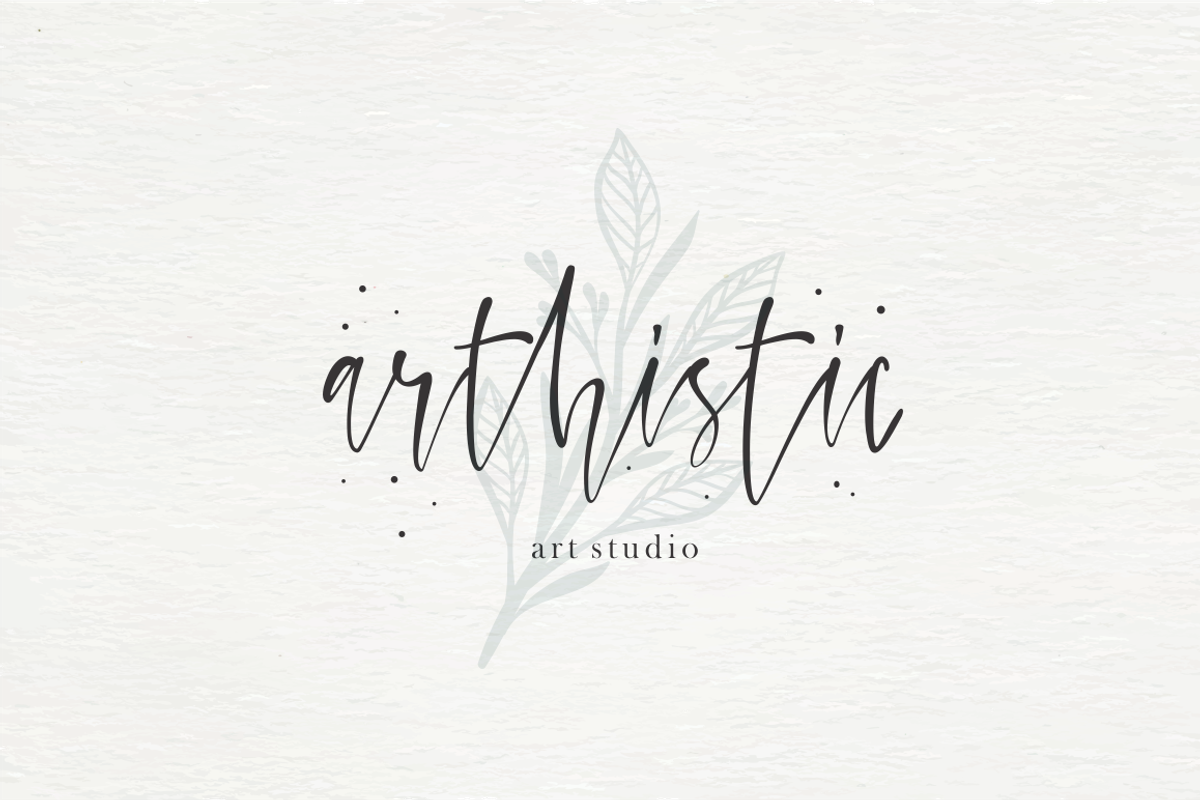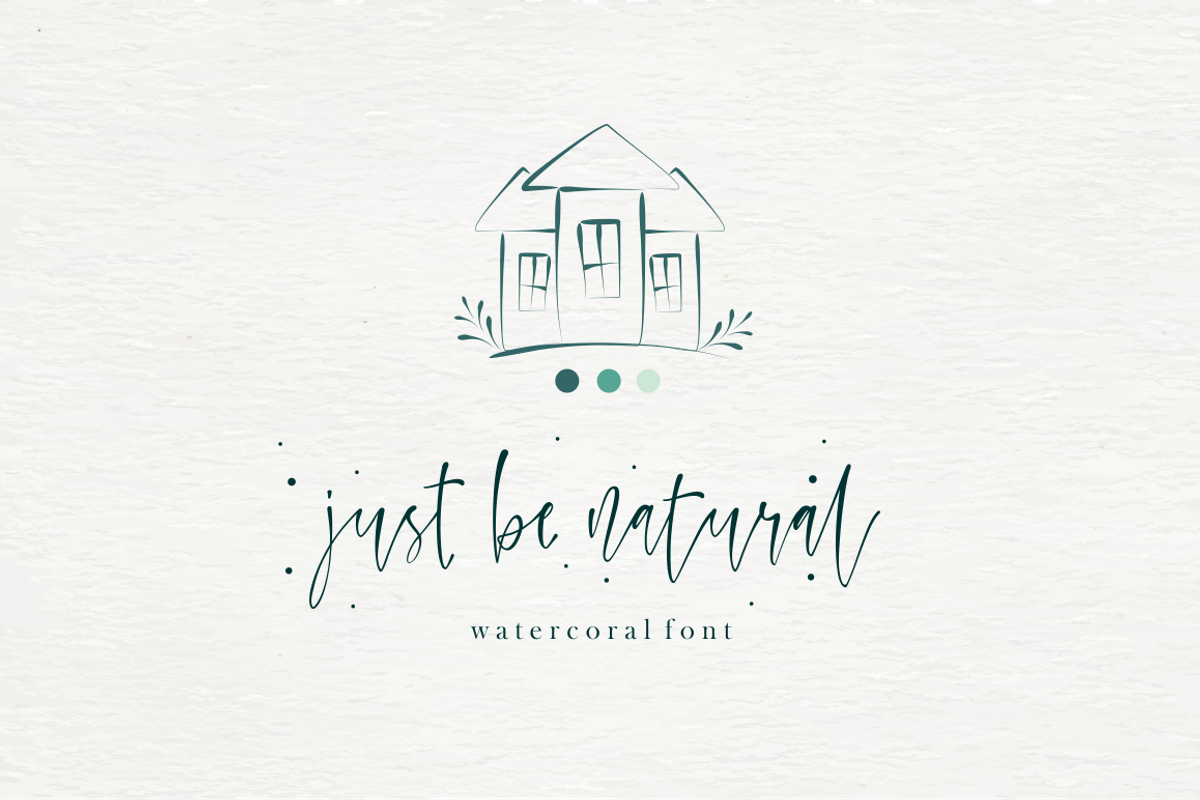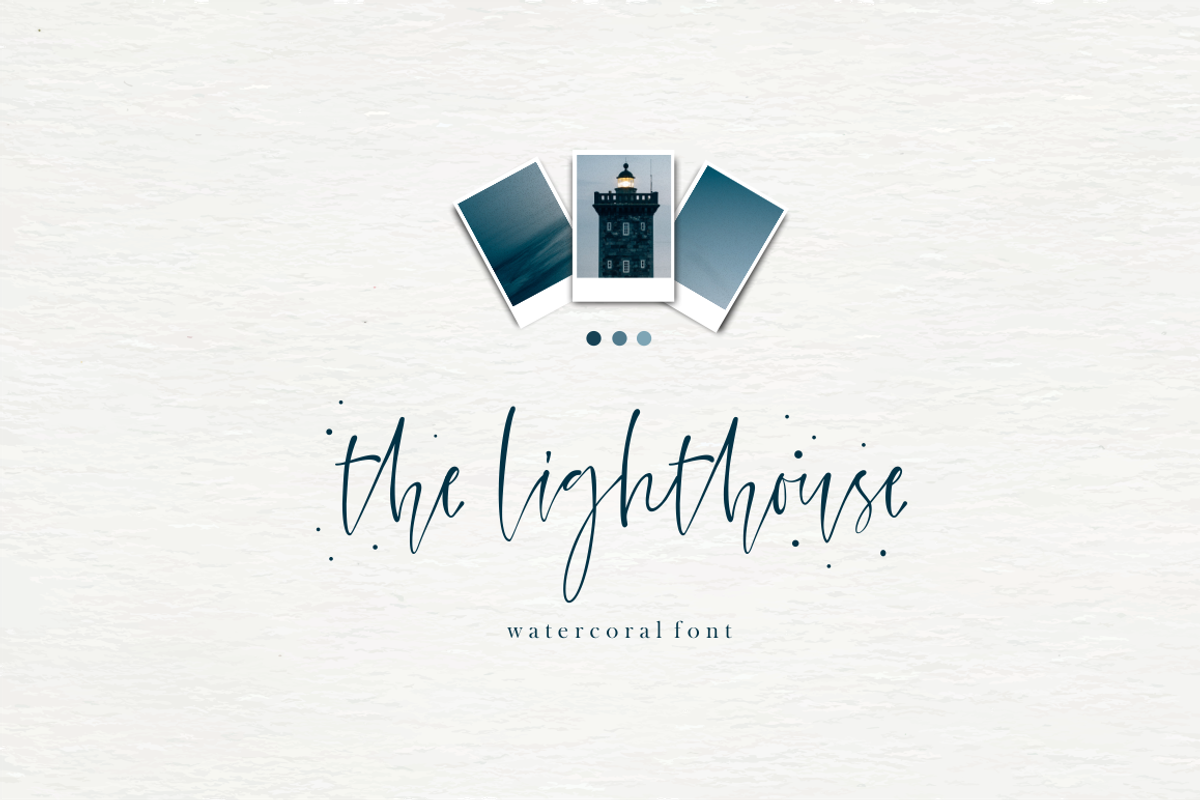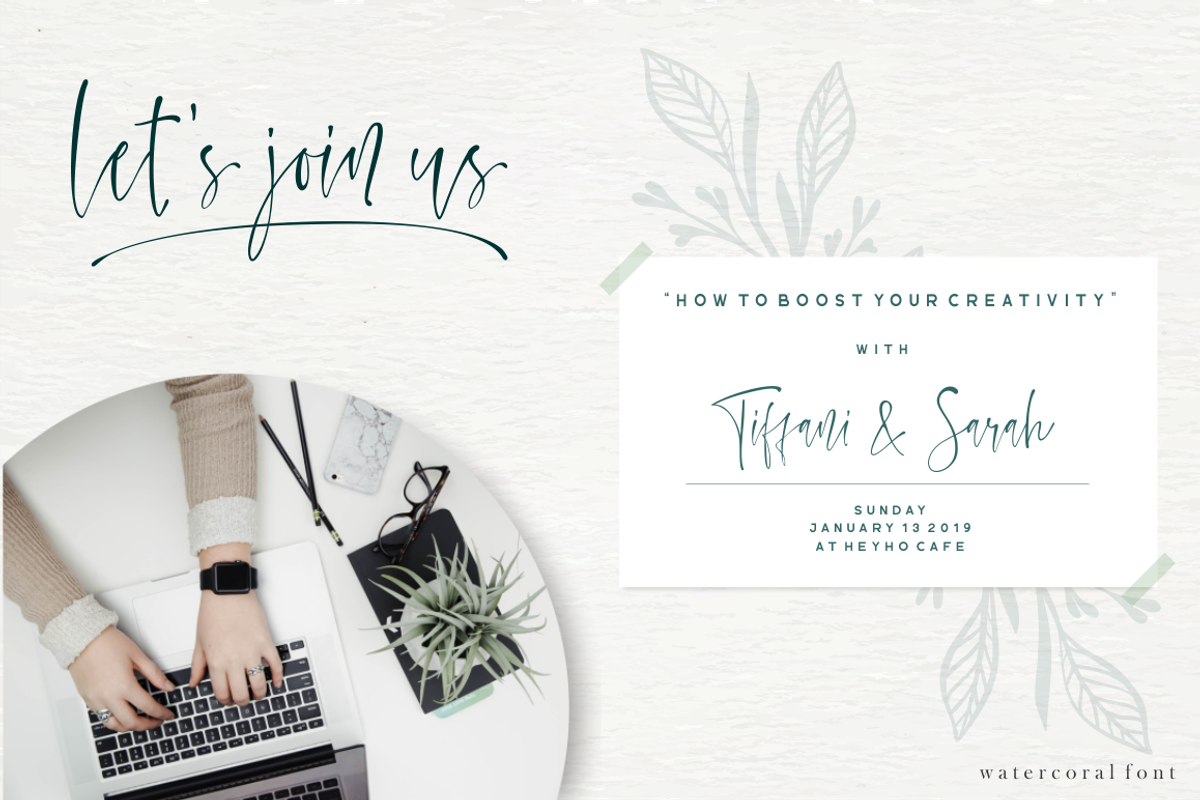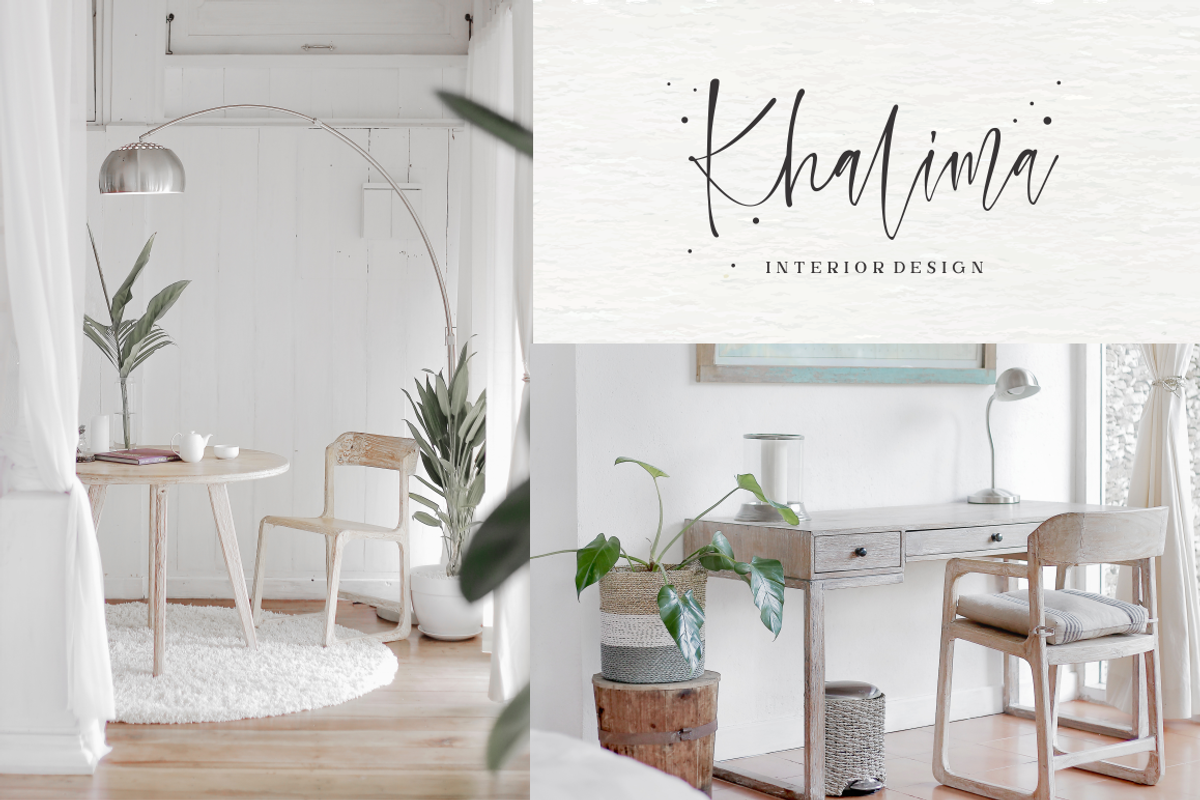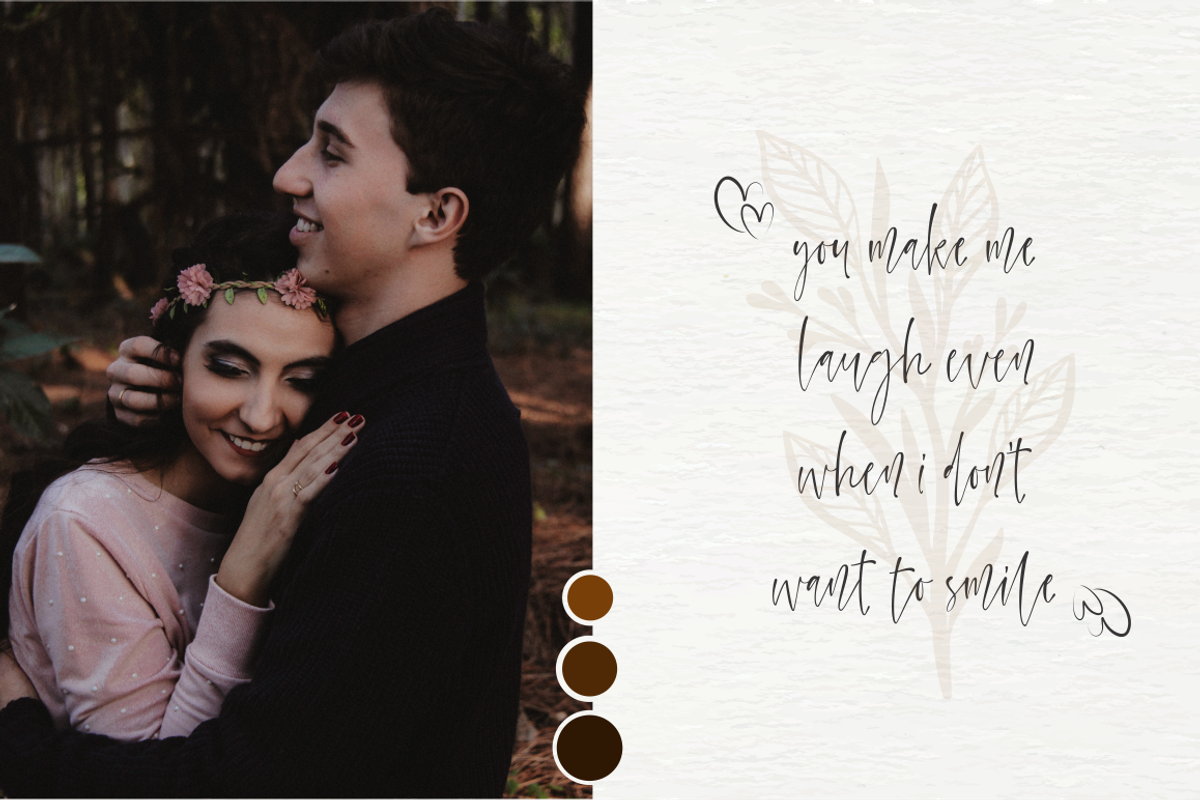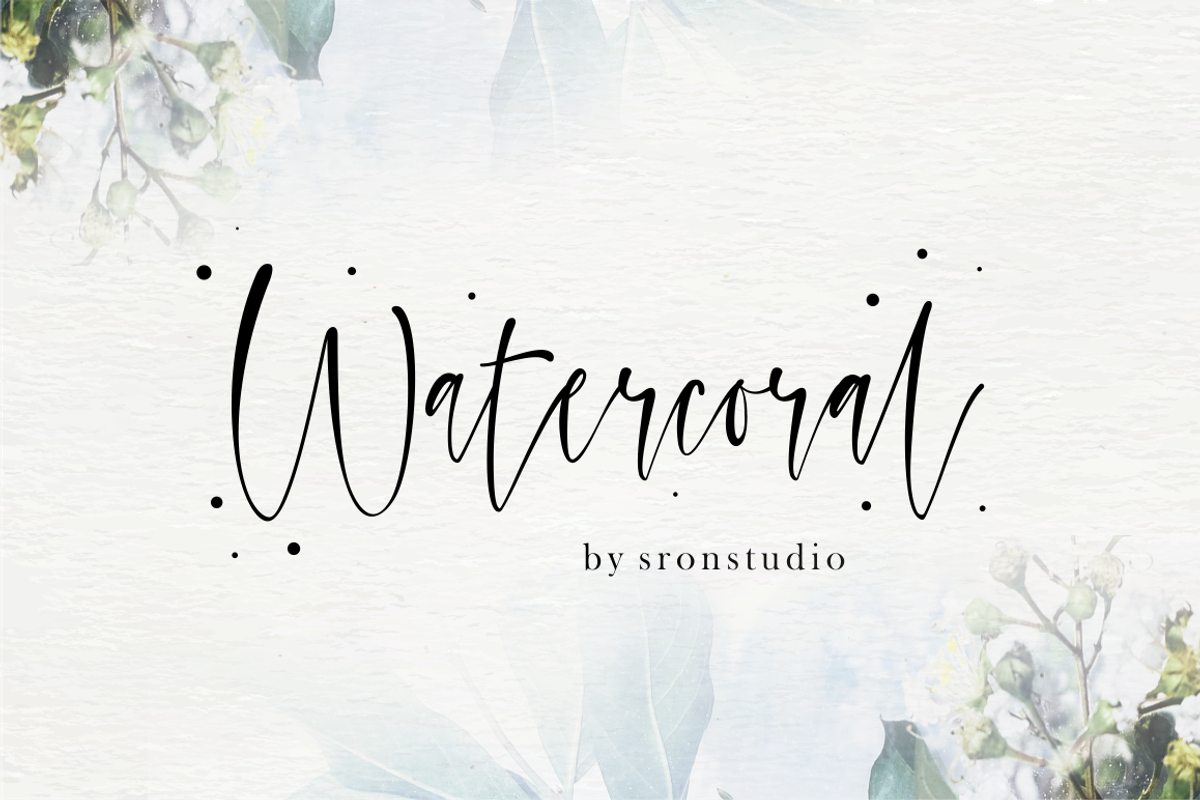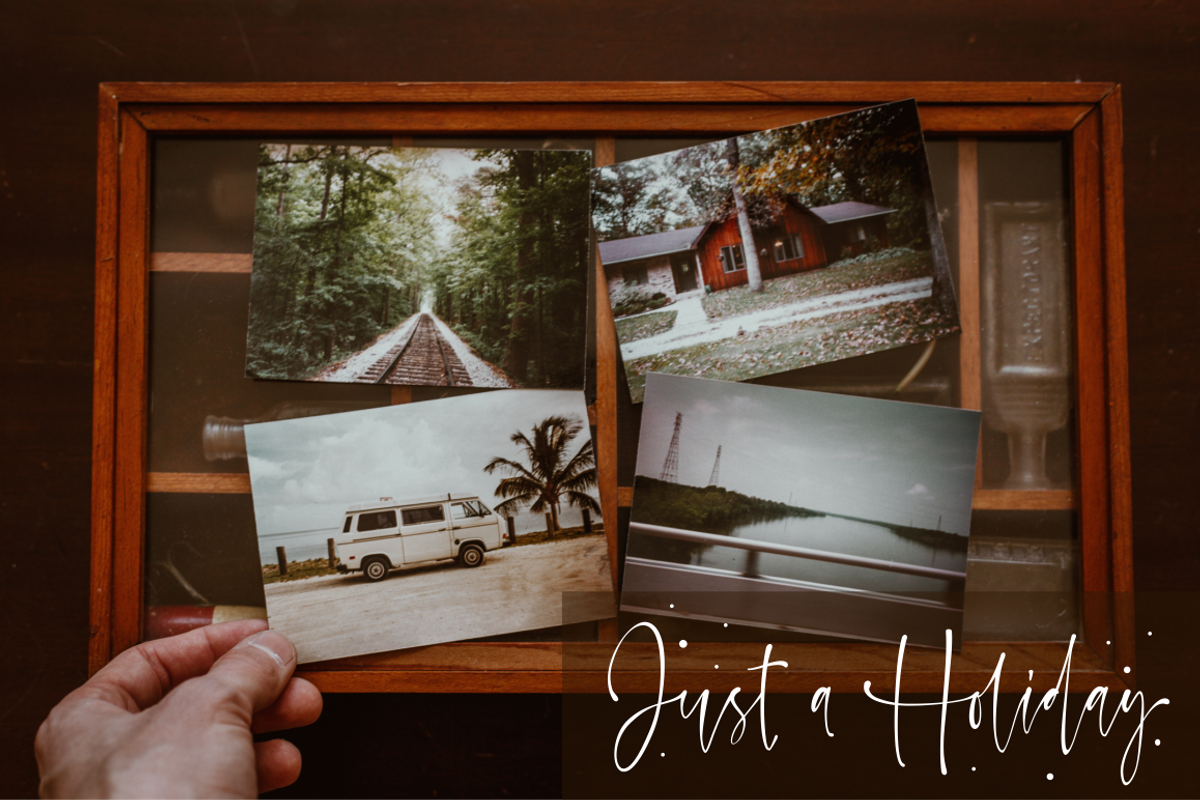
Watercoral // Natural Script Font
Let me introduce my new font, Watercoral !!
I see so many people who like watercolor design, so I decided to make a font that’s very suitable for your watercolor design, but that doesn’t mean this font is only suitable for watercolor designs ! NO !! This font is also suitable for a project that requires fonts with natural and handlettered effects.
This font does’nt contain too many alternative letters, so it is easy to use for people who are not skilled enough in design software, and of course this font is also very simple to use for you guys designers 🙂